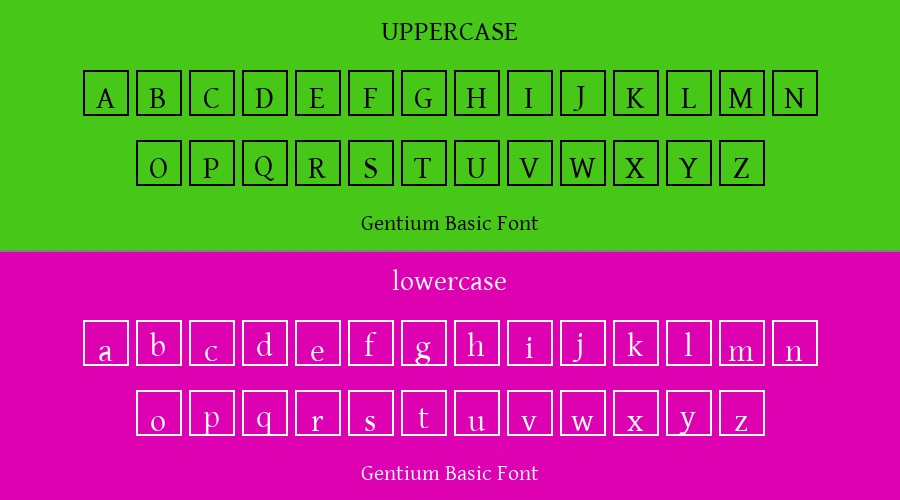
About Gentium Basic Font
Gentium Basic Font stands out for its distinctive combination of hairline details and functional clarity. Ideal for print publications, it provides the precision and traditional values that professional projects demand. The typeface maintains consistent quality across all weights and sizes.
Key features include refined proportions and practical case-sensitive forms, enhancing typographic expression. In book chapters applications, Gentium Basic Font demonstrates exceptional numerical alignment. The descender depth and market position contribute to its distinctive character and professional appeal.
Gentium Basic Font |